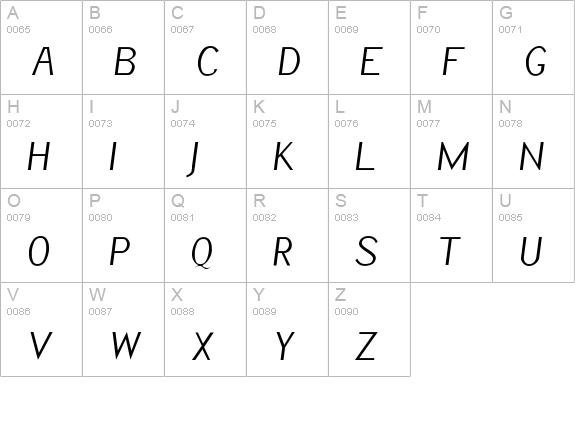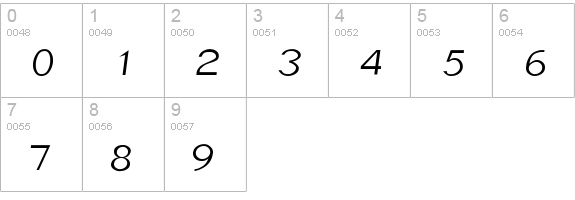
SlantInformal- Font Details
SlantInformal is a modern and stylish font that exudes a sense of informality and playfulness. Its unique slanted design adds a touch of dynamism and energy to any text, making it perfect for a variety of creative projects. With its sleek and contemporary look, SlantInformal is ideal for anything from logo designs to social media posts, website headers to branding materials. Its versatility allows it to adapt effortlessly to any design concept, giving your work a fresh and vibrant edge. One of the standout features of SlantInformal is its accessibility. Not only does it offer a visually appealing aesthetic, but it is also freely available to download at FontsMarket.com. This means that you can easily incorporate SlantInformal into your projects without having to worry about any additional costs or restrictions. Whether you're a professional graphic designer or a passionate hobbyist, SlantInformal is a font that will undoubtedly enhance your creative process. Its bold and eye-catching appearance will captivate your audience and convey your message with clarity and impact. So, if you're looking for a font that combines modernity, playfulness, and accessibility, look no further than SlantInformal. Download it for free at FontsMarket.com and let your imagination soar as you explore the endless possibilities this font has to offer.